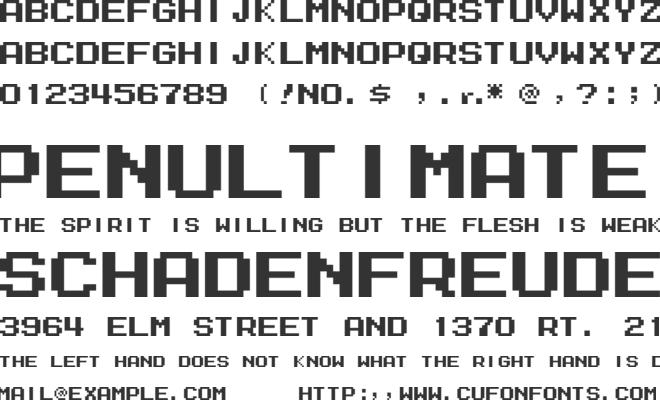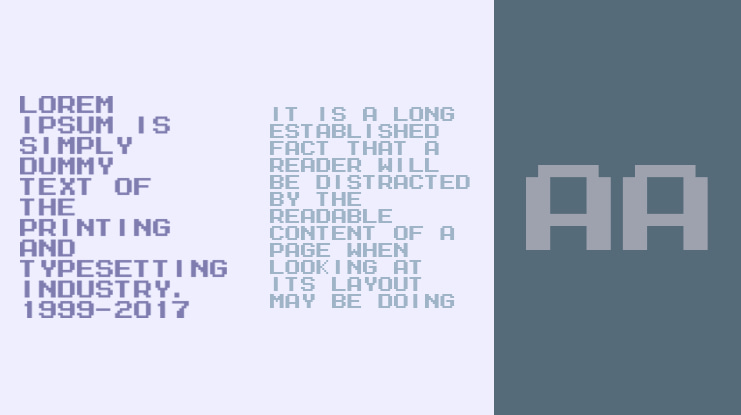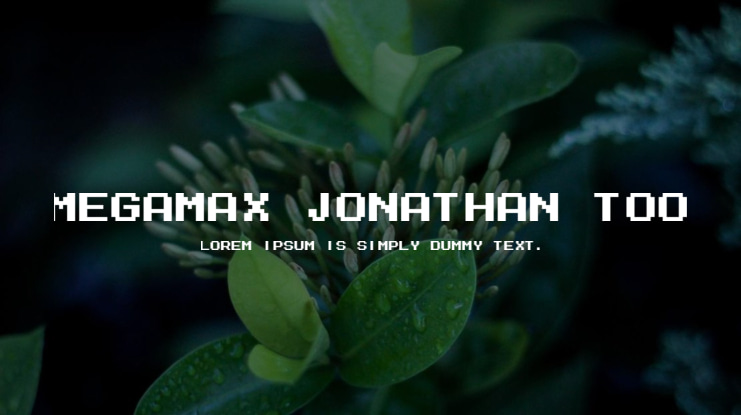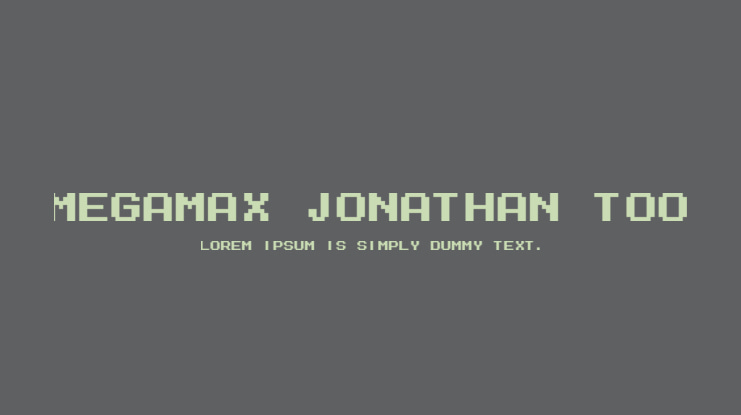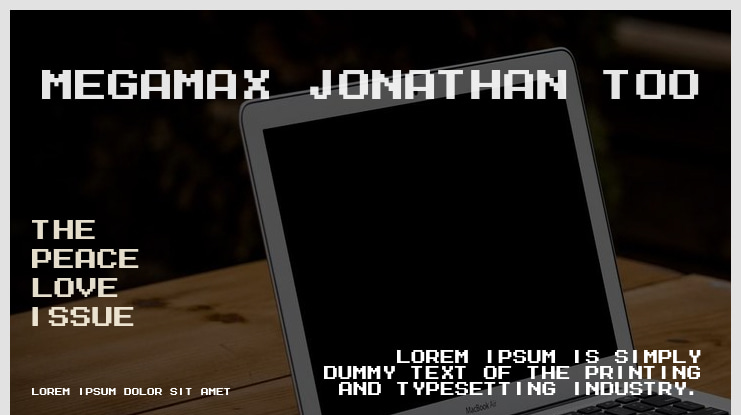
Megamax Jonathan Too Font
This is another Mega Man font I've created, an homage to Megamax Jones. It features a purely bitmapped design inspired by the 16-bit, 8x8 lettering style found in the early Mega Man X games for the SNES. Please note that later games released for the Sony PlayStation feature significantly different lettering. This font predominantly draws from the 8-bit bitmapped lettering seen in the NES game Mega Man 2 from 1988. Some characters come from Mega Man and Mega Man 3 for the NES, while others are alternative characters sourced from fan translations of Mega Man 2. Additionally, I designed custom characters that do not appear in the NES hexalogy of Mega Man games. This font is best used at 11 points or its multiples.